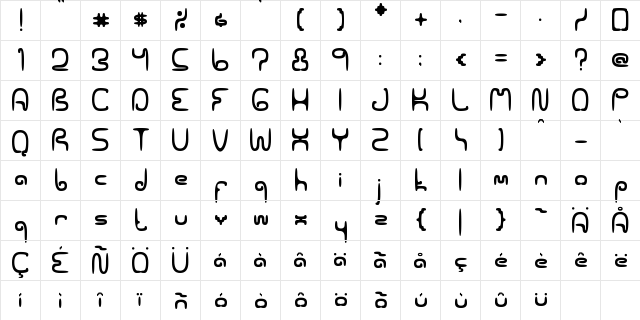
SPACEWORM02 Regular
| Foundry | Eric Wiryanata |
| Designer | Eric Wiryanata |
Design Context for SPACEWORM02 Typeface
SPACEWORM02 is a composed and adaptable typeface that performs quietly and consistently across a wide range of design contexts.
Pro Tip: Use SPACEWORM02 in both headline and body roles to test its range before committing to a single application.